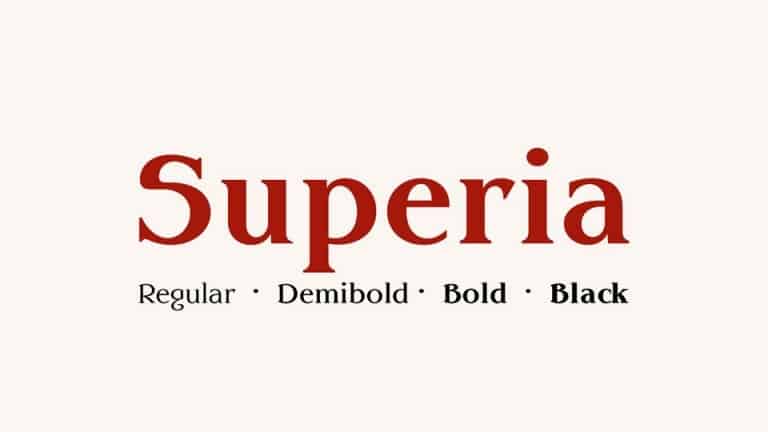
Superia Serif Font
Superia Serif Font, a reinterpretation of a typeface for books in different optical sizes. It is a serif font from the designer Frank Baranowski. Superia is a stylish, but versatile serif font family for certain issues. It comes with four weights ranging from Regular to Black.
With its classic forms and fancy elements Superia will cover a wide range of design projects starting from greeting cards to magazines, weddings, vintage signages and more.